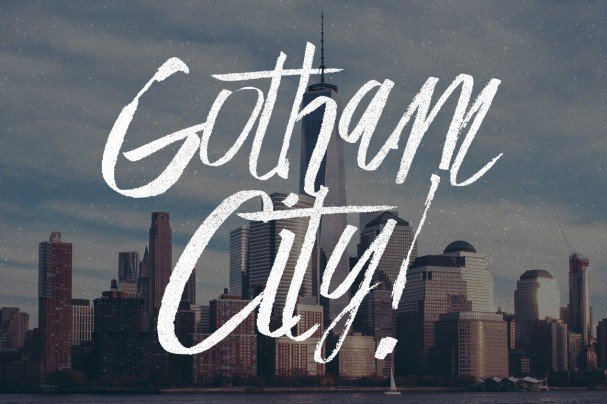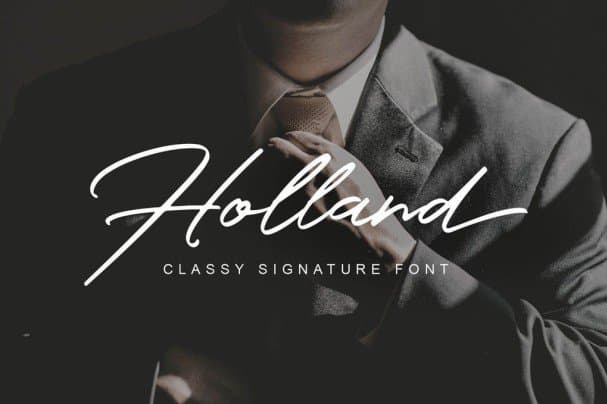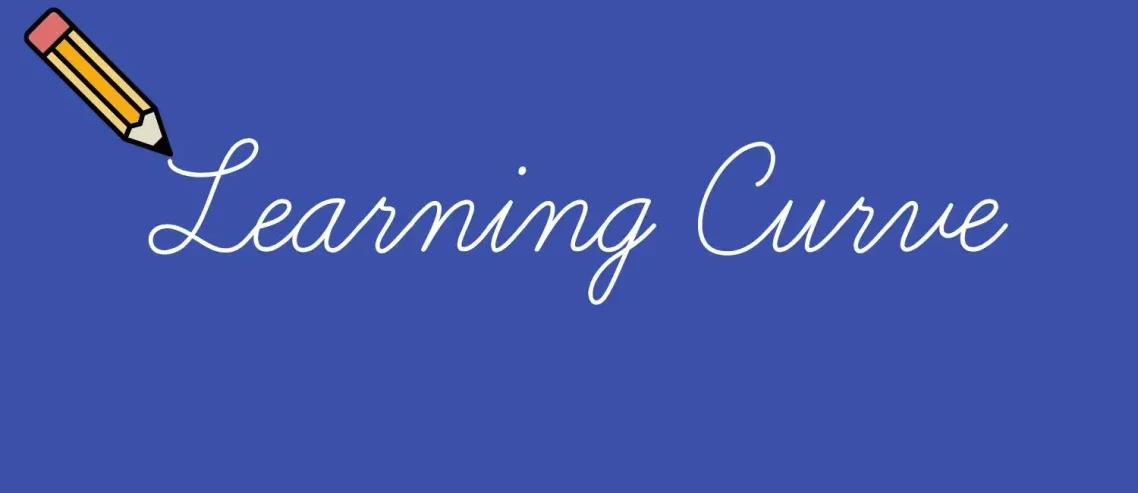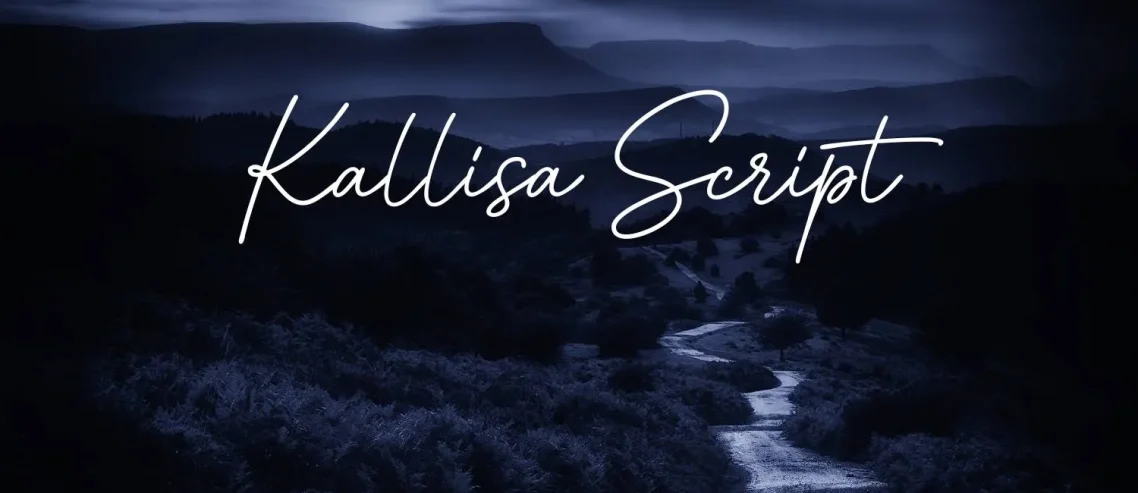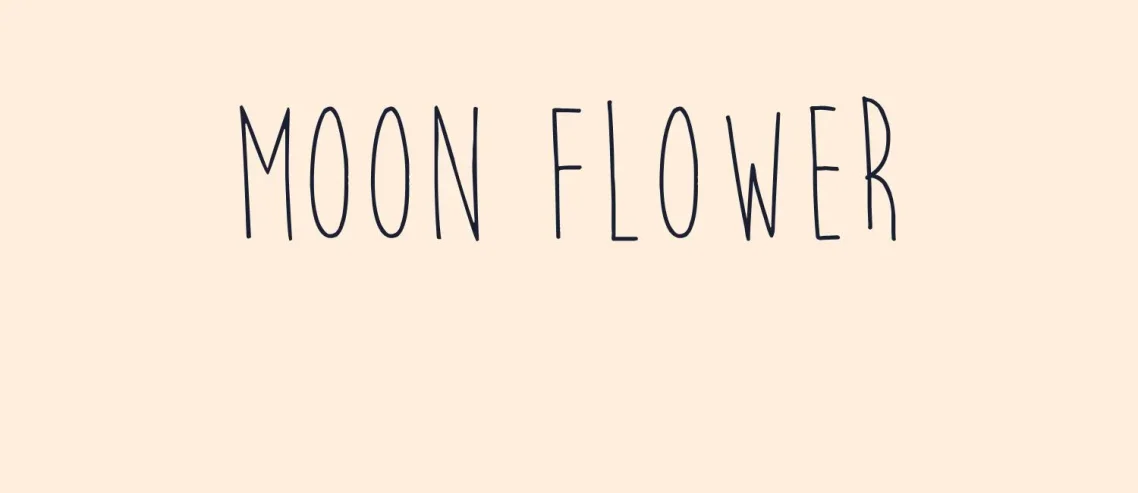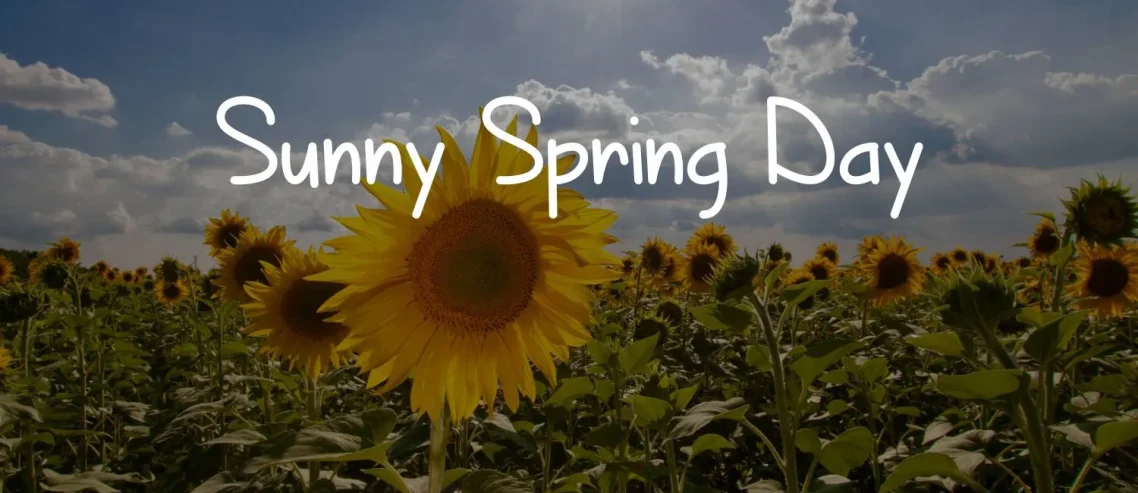
Kallisa Script Font Free Download
Kallisa Script Font, designed by a talented typographer, is a cursive and elegant script typeface. The designer sought to capture a sense of fluidity and grace in each letterform, resulting in a font that exudes sophistication. Kallisa is often chosen for projects that demand a touch of femininity or a handwritten feel. Its stylistic elements …
Sunny Spring Day Font Free Font Download
Sunny Spring Day is a font that exudes happiness and playfulness, created to infuse your projects with a feeling of delight. Its whimsical and handwritten characters make it ideal for imaginative and light-hearted designs. This font, designed by Vanessa Bays, is often used in projects that aim to convey a friendly and approachable atmosphere. Sunny …
Easy Brush Font
Easy Brush Font is known for its script typeface and is commonly used for business purposes. It is also available on Google Fonts and is also referred to as the Smooth Brush Font. The primary is a font this is created with the useful content of the use of gatsby style font. He took the …
Holland Classy Font
Holland Classy Font is categorized as a classy font. It gives the impression of a swashes font mockup in a font-view and is commonly used for its text generator feature. This font is multipurpose and flexible, make its miles had to inform with a few unique typefaces to create a few suitable assignments reminiscent of …
Moon Flower Font Free Download
The font “Moon Flower,” created by Denise Bentulan, is a delicate and decorative script typeface. Its flowing and graceful letterforms bring a feminine and charming touch to your text. Moon Flower is often used in projects that demand a romantic or elegant aesthetic, such as wedding invitations, greeting cards, and feminine branding designs. Font Family …
Learning Curve Font Free Download
Welcome Back Clan! We are back with another sensational and exceptional typeface that is adequate to make you fall in love with it. Learning Curve Font belongs to the script typeface family that is known by the name of Learning Curve Font. It is created by a famous designer named Jess Latham. It simulates traditional …